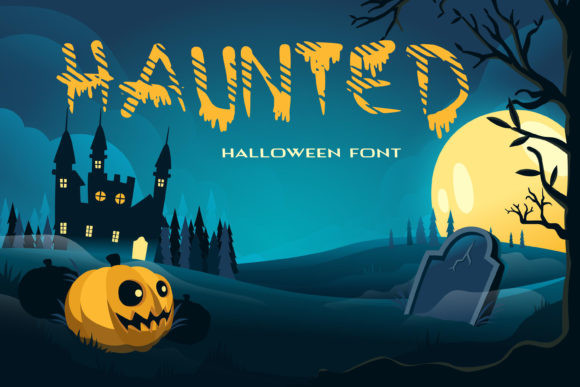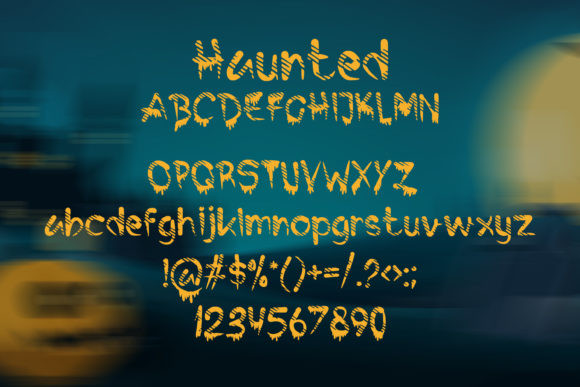
Haunted Font
Haunted is an incredibly unique and interesting display font. It is the best choice for creating eye catching Halloween designs, logos, branding and quotes.